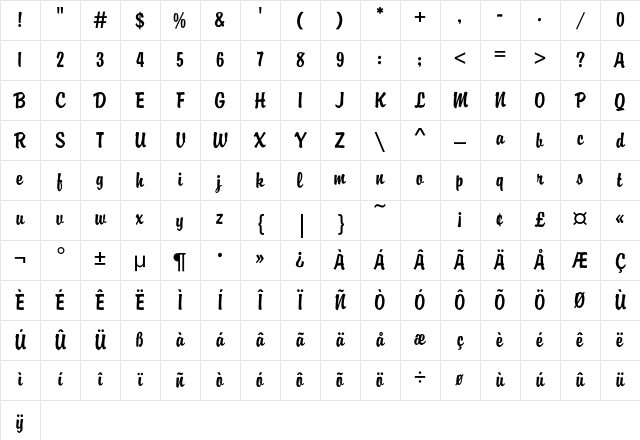
BrodyEF Regular
Design Context for BrodyEF
BrodyEF is a composed and adaptable typeface that performs quietly and consistently across a wide range of design contexts.